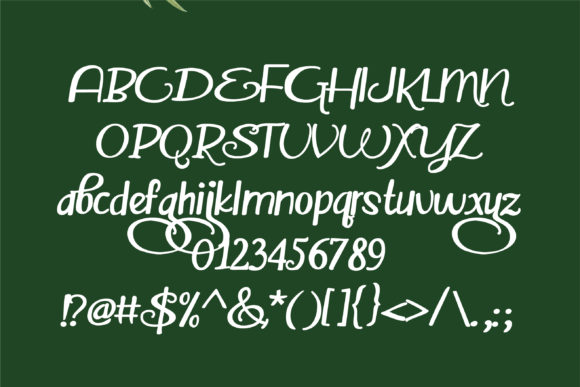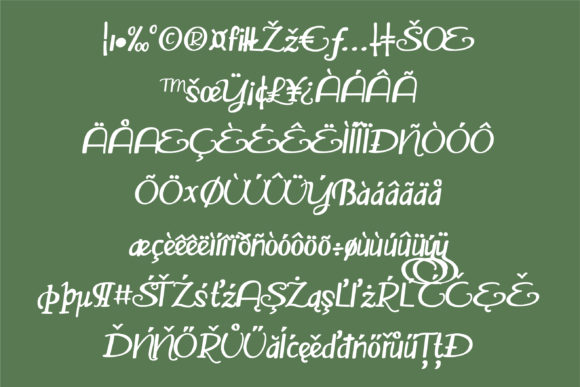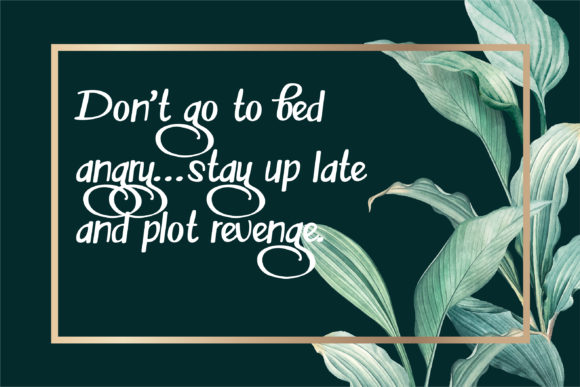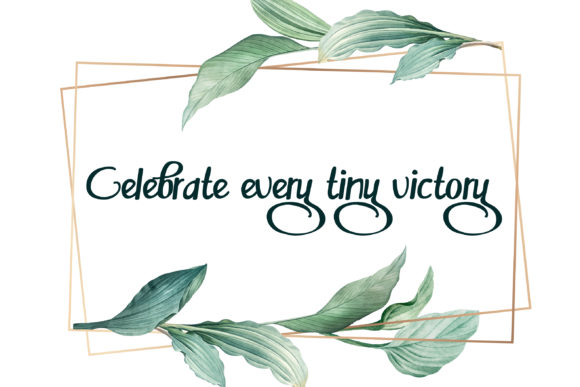
Introducing Evergreedy Font: The Ultimate Choice for Designers and Crafters
Are you tired of using the same old fonts in your designs? Look no further than Evergreedy Font, a fun and bold handwritten font that’s sure to add a personal touch to your projects. With its heaps of authenticity and charming personality, Evergreedy Font is the perfect choice for designers and crafters looking to make their mark.
The Story Behind Evergreedy Font
Evergreedy Font is a unique and creative typeface that’s been carefully crafted to bring a sense of warmth and personality to your designs. Its bold and playful style is perfect for making a statement, while its handwritten feel adds a touch of authenticity and charm. Whether you’re working on a branding project, a craft tutorial, or a social media post, Evergreedy Font is sure to help you stand out from the crowd.
What Makes Evergreedy Font So Special?
So, what sets Evergreedy Font apart from other fonts on the market? Here are just a few of its standout features:
• Bold and Playful Style: Evergreedy Font is a bold and playful typeface that’s perfect for making a statement. Its fun and energetic vibe is sure to grab attention and add a touch of personality to your designs.
• Handwritten Feel: With its handwritten feel, Evergreedy Font adds a touch of authenticity and charm to your designs. Its unique and imperfect style is sure to make your projects stand out from the crowd.
• Heaps of Authenticity: Evergreedy Font is a font that’s been carefully crafted to bring a sense of warmth and personality to your designs. Its authentic and genuine style is sure to resonate with your audience and help you build a strong brand identity.
How to Use Evergreedy Font in Your Designs
Evergreedy Font is a versatile typeface that can be used in a wide range of design projects. Here are just a few ideas to get you started:
• Branding Projects: Use Evergreedy Font to add a personal touch to your branding projects, such as logos, business cards, and letterheads.
• Craft Tutorials: Add a touch of personality to your craft tutorials with Evergreedy Font. Its bold and playful style is perfect for making a statement and adding visual interest to your projects.
• Social Media Posts: Use Evergreedy Font to add a touch of charm and personality to your social media posts. Its handwritten feel and bold style are sure to help you stand out from the crowd and grab attention.
Why Designers and Crafters Love Evergreedy Font
Evergreedy Font has quickly become a favorite among designers and crafters, and it’s easy to see why. Here are just a few reasons why:
• Easy to Read: Despite its bold and playful style, Evergreedy Font is surprisingly easy to read. Its clear and legible letters make it perfect for use in a wide range of design projects.
• Versatile: Evergreedy Font is a versatile typeface that can be used in a wide range of design projects. Its bold and playful style makes it perfect for use in branding projects, craft tutorials, social media posts, and more.
• Unique: Evergreedy Font is a unique and creative typeface that’s sure to help you stand out from the crowd. Its handwritten feel and bold style make it a one-of-a-kind font that’s sure to add a touch of personality to your designs.
Evergreedy Font is a fun and bold handwritten font that’s sure to add a personal touch to your designs. With its heaps of authenticity and charming personality, it’s the perfect choice for designers and crafters looking to make their mark. Whether you’re working on a branding project, a craft tutorial, or a social media post, Evergreedy Font is sure to help you stand out from the crowd and grab attention. So why wait? Try Evergreedy Font today and see the difference it can make in your designs!